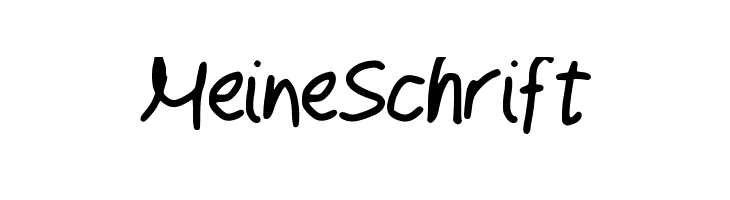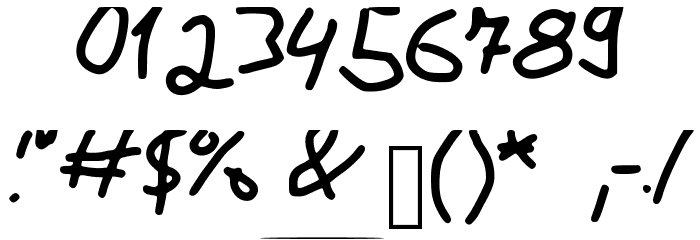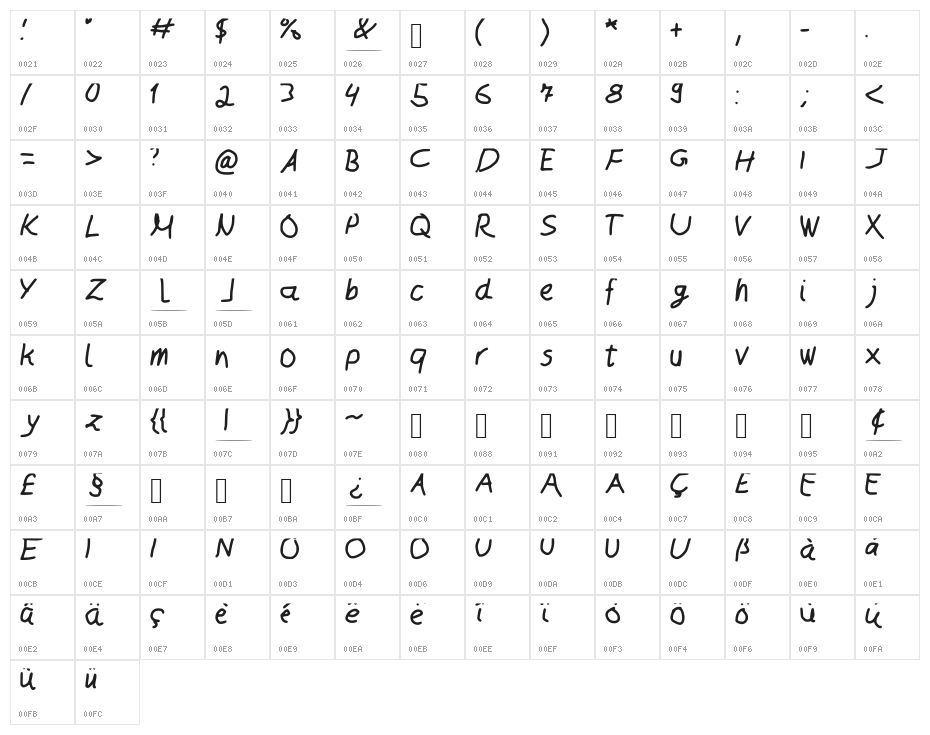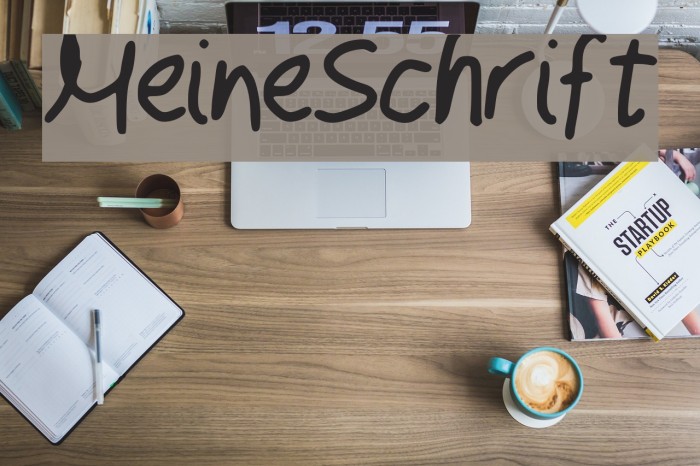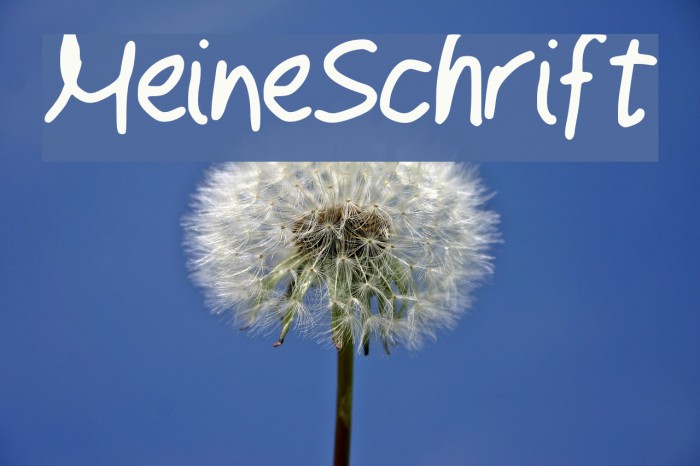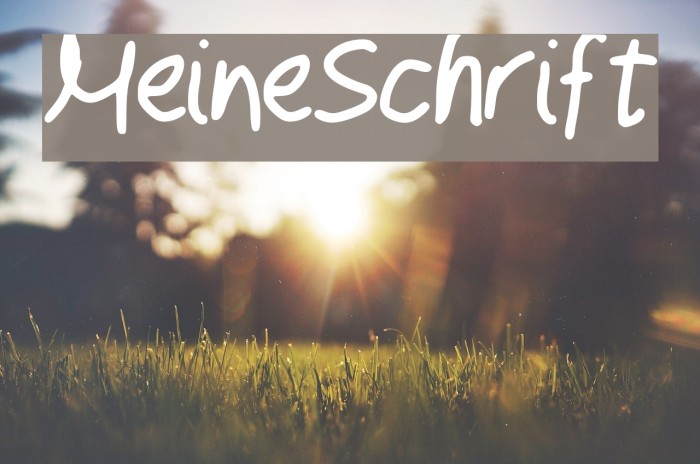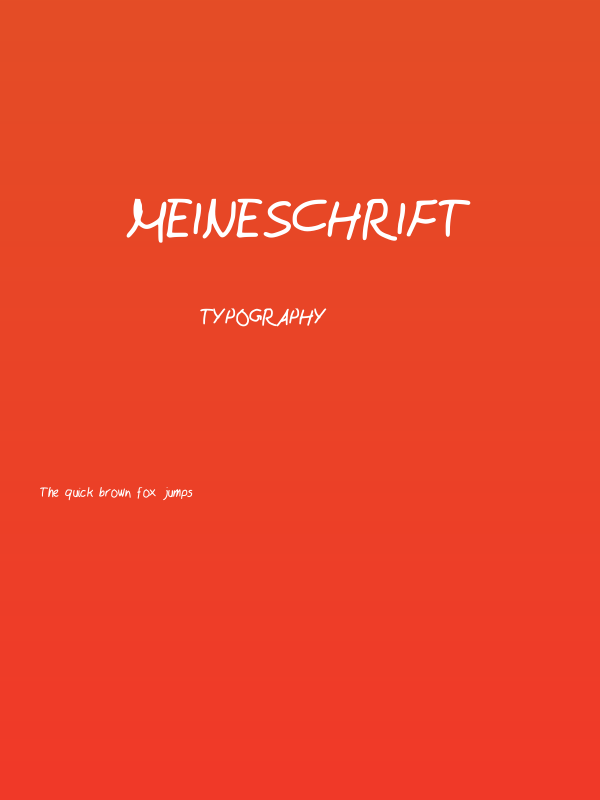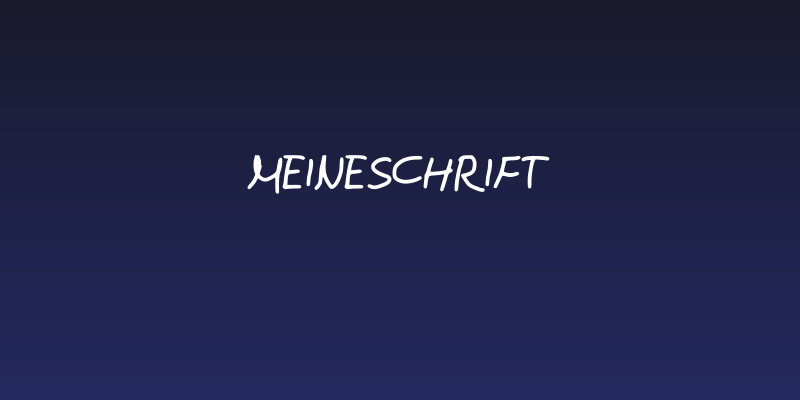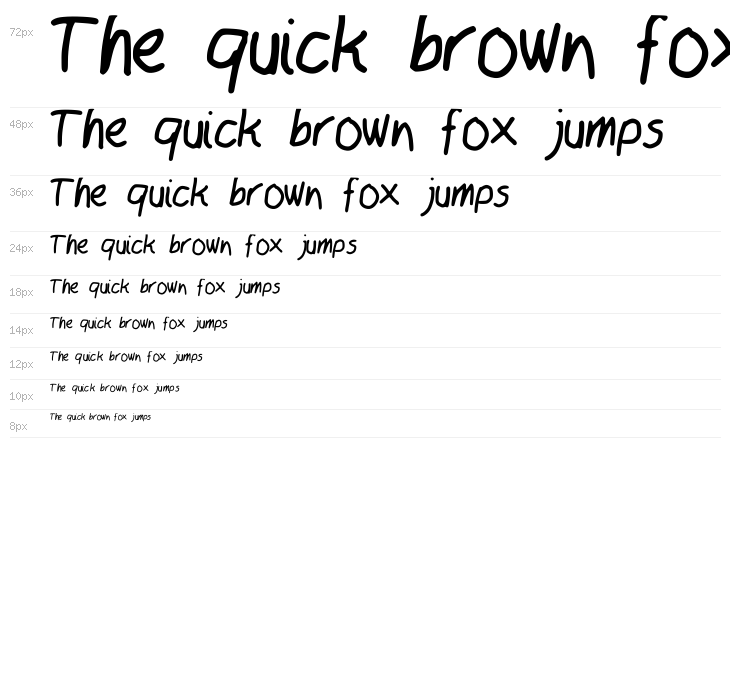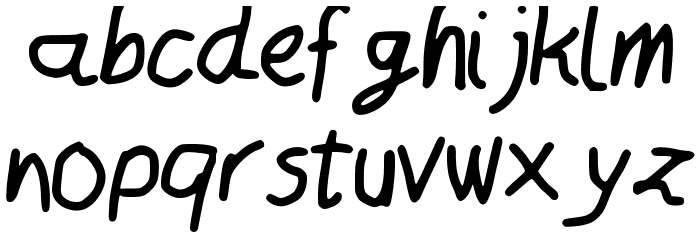
MeineSchrift Font
MeineSchrift Description
This font exudes a playful and casual handwritten style, characterized by its irregular strokes and informal appearance. The letters are slightly slanted, giving a dynamic and lively feel. The uppercase and lowercase letters maintain a consistent flow, while the numbers and special characters complement the overall aesthetic. The strokes vary in thickness, adding to the organic and spontaneous look. This font is ideal for projects that require a personal touch or a relaxed vibe, such as invitations, greeting cards, or creative branding.
| Proposed Projects | Ideal for invitations, greeting cards, creative branding, and personal projects. |